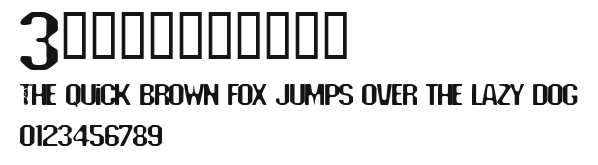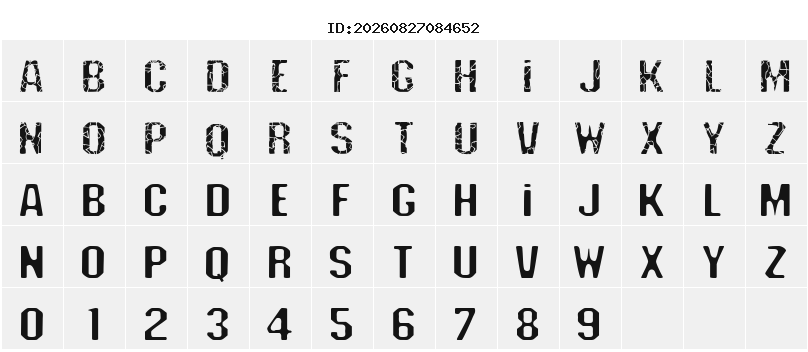
• Font Name: 3代呼吸英文-黑上下圆
• Full Font Name: 3代呼吸英文-黑上下圆
About 3代呼吸英文-黑上下圆.ttf
3代呼吸英文-黑上下圆.ttf is a modern, elegant sans-serif font designed for ultimate readability and visual harmony. Perfect for branding, headlines, web design, and print materials.